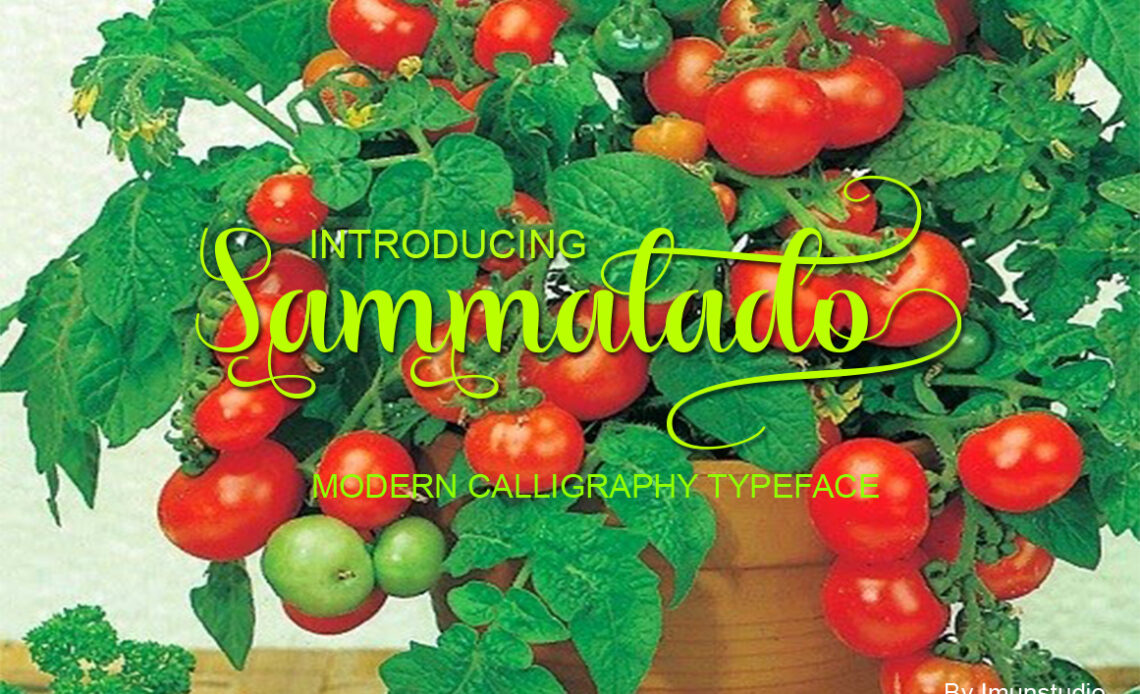
Sammalado Font
Journey into the Enchanting Realm of Sammalado Font: Where Artful Strokes Dance with Elegance
In a world where words take shape and stories unfold, the Sammalado Font emerges as a masterpiece of digital calligraphy. Crafted by the skilled hands of Imun Studio, this script font invites you to experience the allure of handwritten artistry, seamlessly blended with the precision of digital optimization.
Sammalado's fluid lines and graceful curves mimic the natural flow of ink on paper, capturing the essence of heartfelt expression. Each letterform dances across the page, carrying with it a tale of creativity and imagination. Whether you're a seasoned designer seeking to elevate your projects or a passionate storyteller eager to infuse your words with a touch of elegance, Sammalado stands ready to be your trusted companion.
Picture the joy of penning heartfelt messages, crafting captivating invitations, or designing stunning logos that resonate with your audience. With Sammalado at your fingertips, you'll discover endless opportunities to transform the ordinary into the extraordinary. Its versatility shines in a myriad of applications, from personal correspondence to professional presentations, effortlessly adding a touch of sophistication and charm.
Embrace the artistry of Sammalado and watch as your words blossom into a symphony of visual delight. Its enchanting characters will captivate your readers, leaving them spellbound by the beauty and grace of your creations. Whether you're designing for print or digital media, Sammalado promises to make a lasting impression, leaving your audience in awe.
So, embark on this creative journey with Sammalado Font, and let your imagination take flight. Discover a world where letters intertwine, stories come alive, and your artistic vision knows no bounds. Download Sammalado today and unleash the boundless possibilities that await.